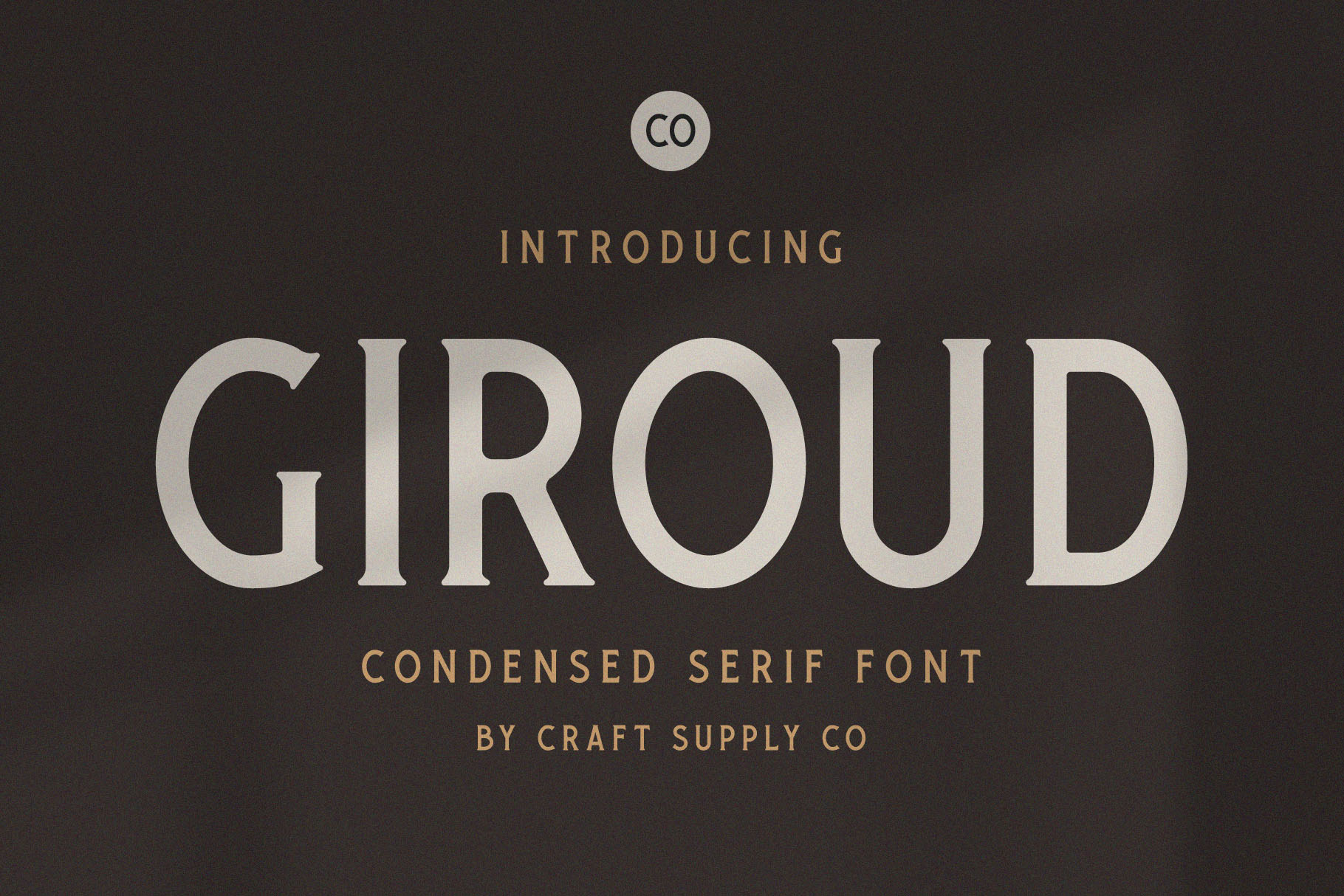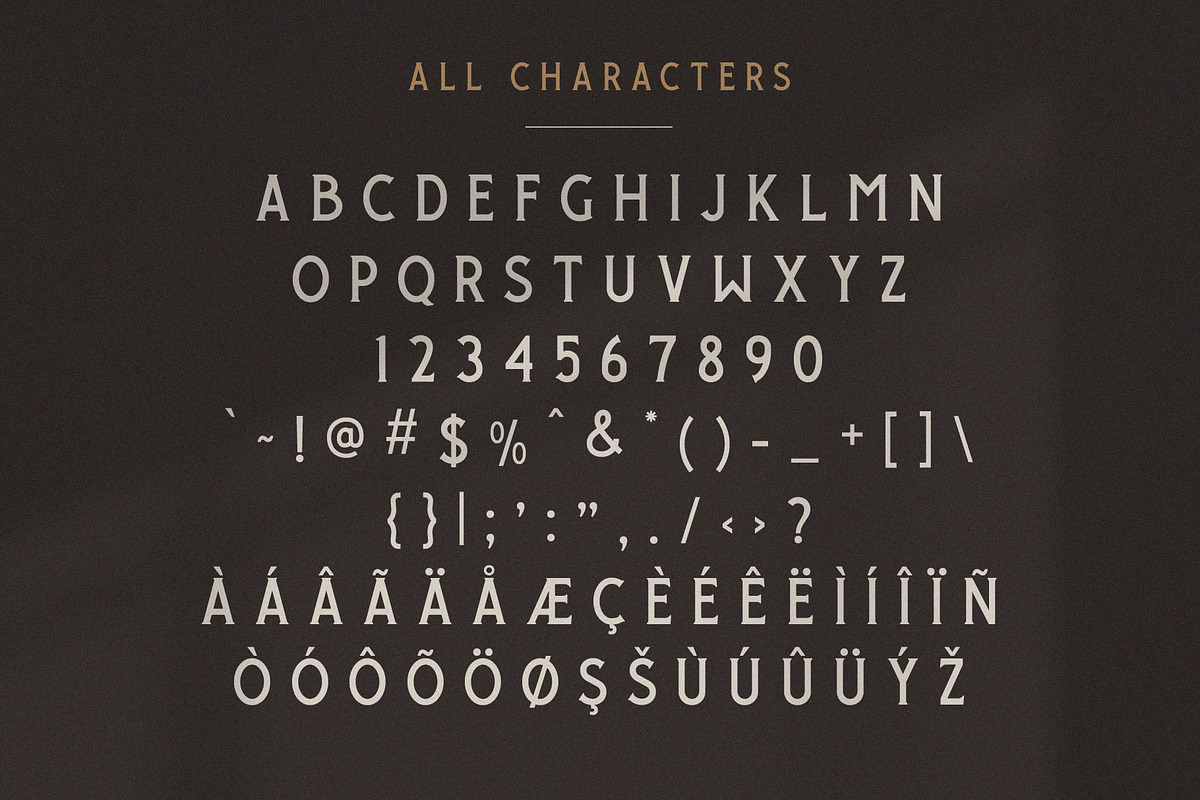
Giroud - Condensed Serif Font
Introducing New Font : Giroud - Condensed Serif Font
Giroud - Condensed Serif Font is an Condensed serif font with solid font files. it is based on the compact solid font, by combining a variety of styles. Suitable for Logo, greeting cards, quotes, posters, branding, name card, stationary, design title, blog header, art quote, typography
Giroud - Condensed Serif Font also suitable for art, modern envelope lettering or book design, craft design, any DIY project, book title, wedding font, pop vintage design, or any purpose to make your art/design project look pretty and trendy.
- All Caps